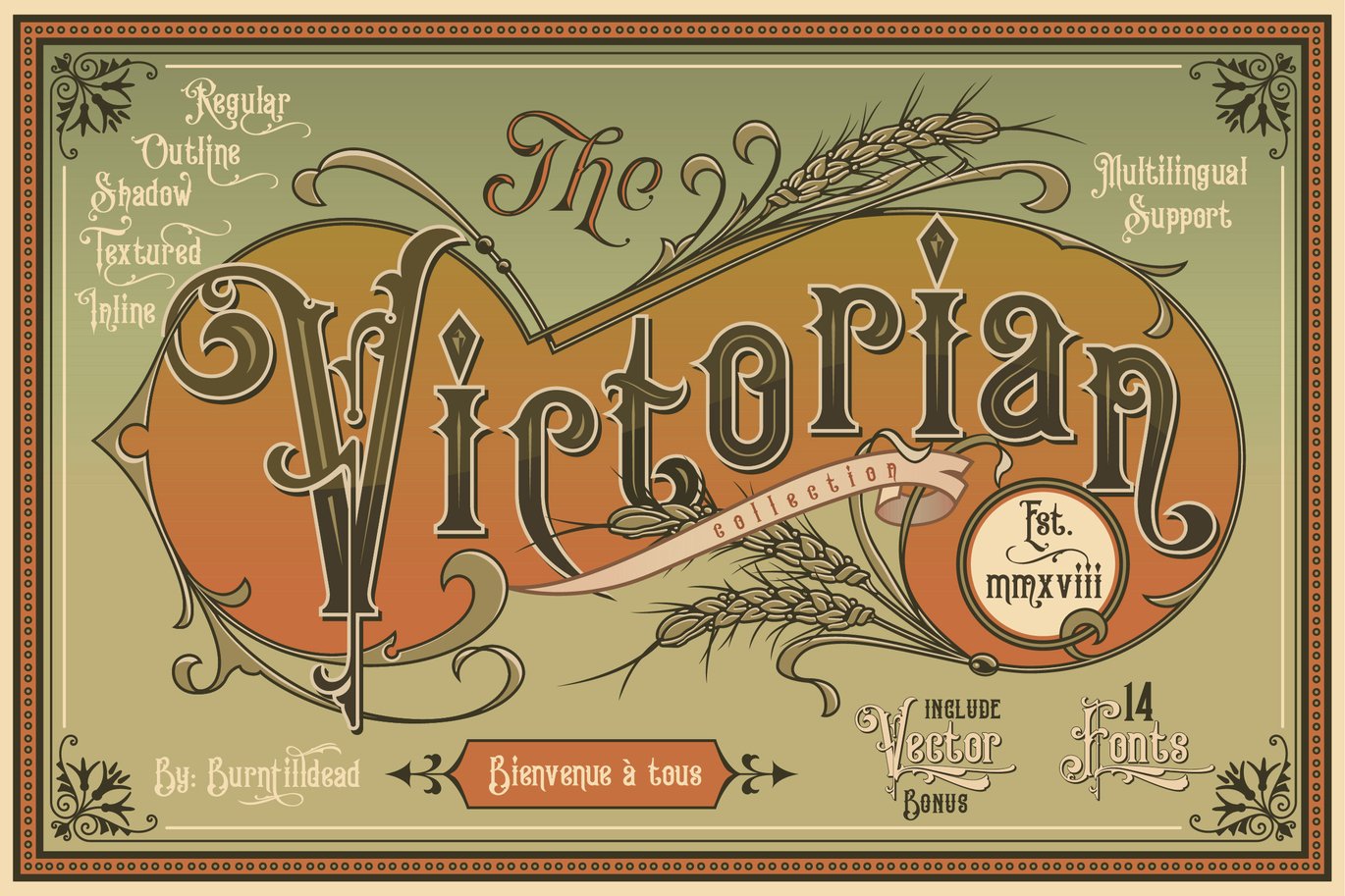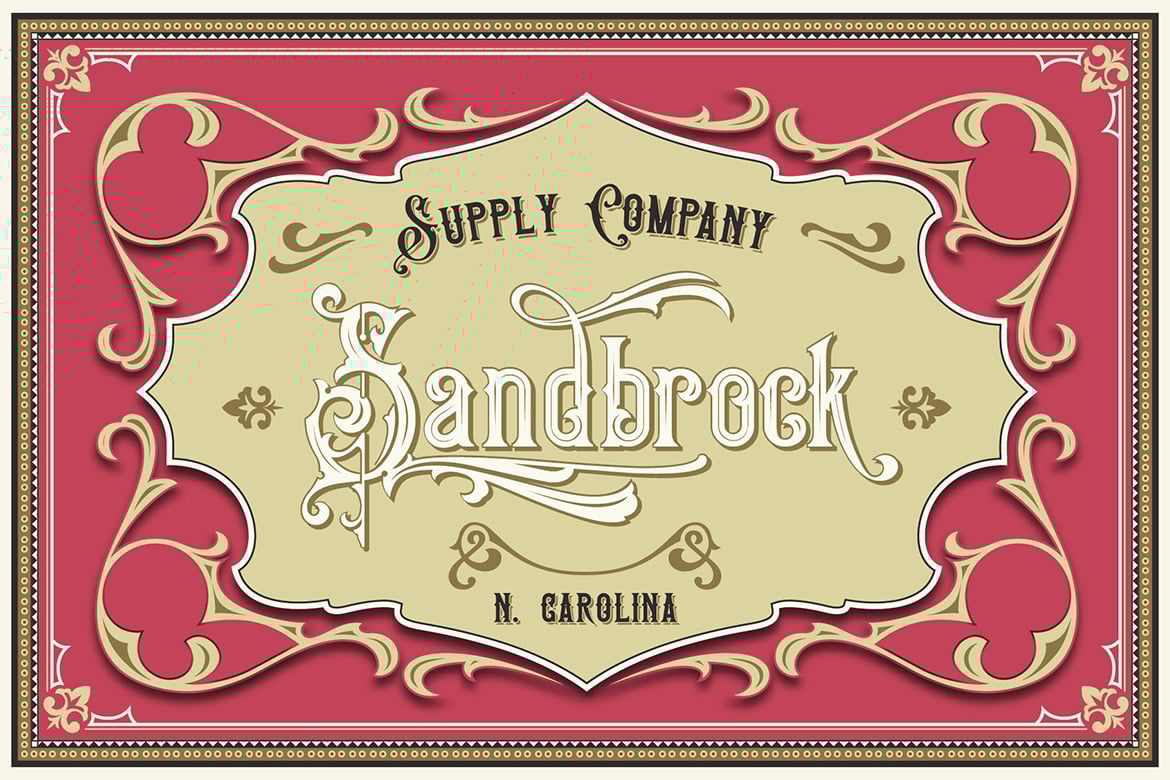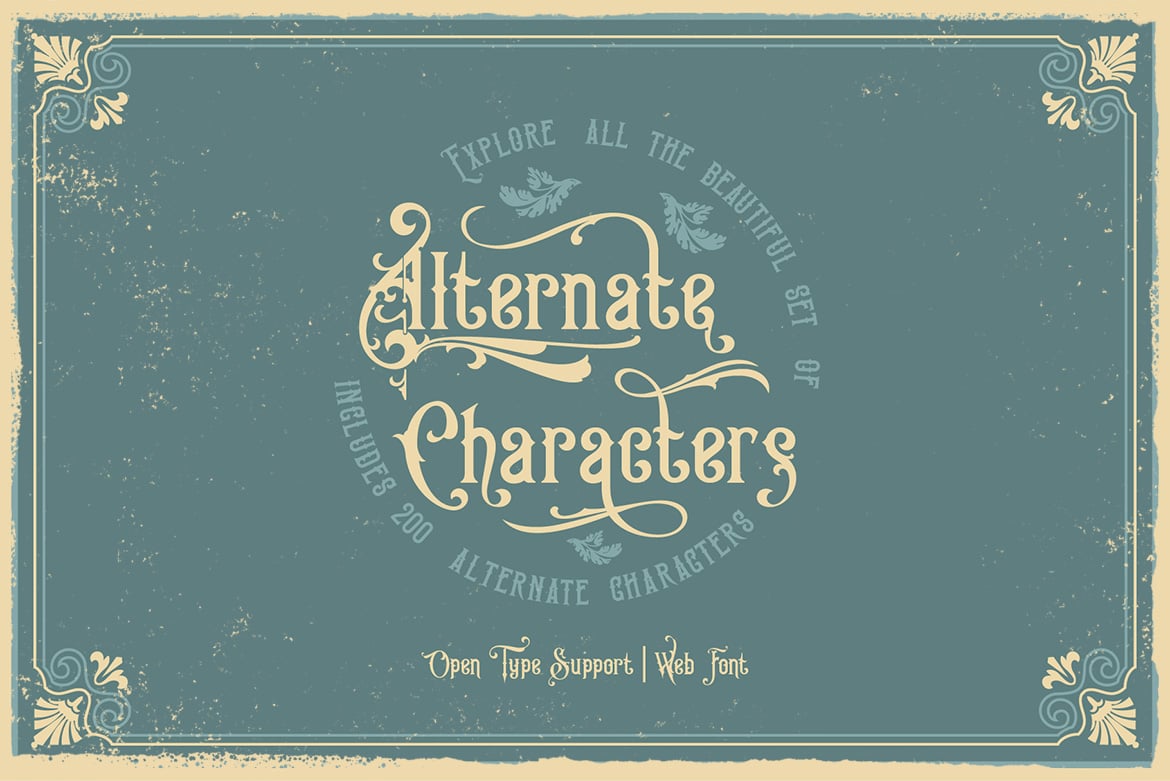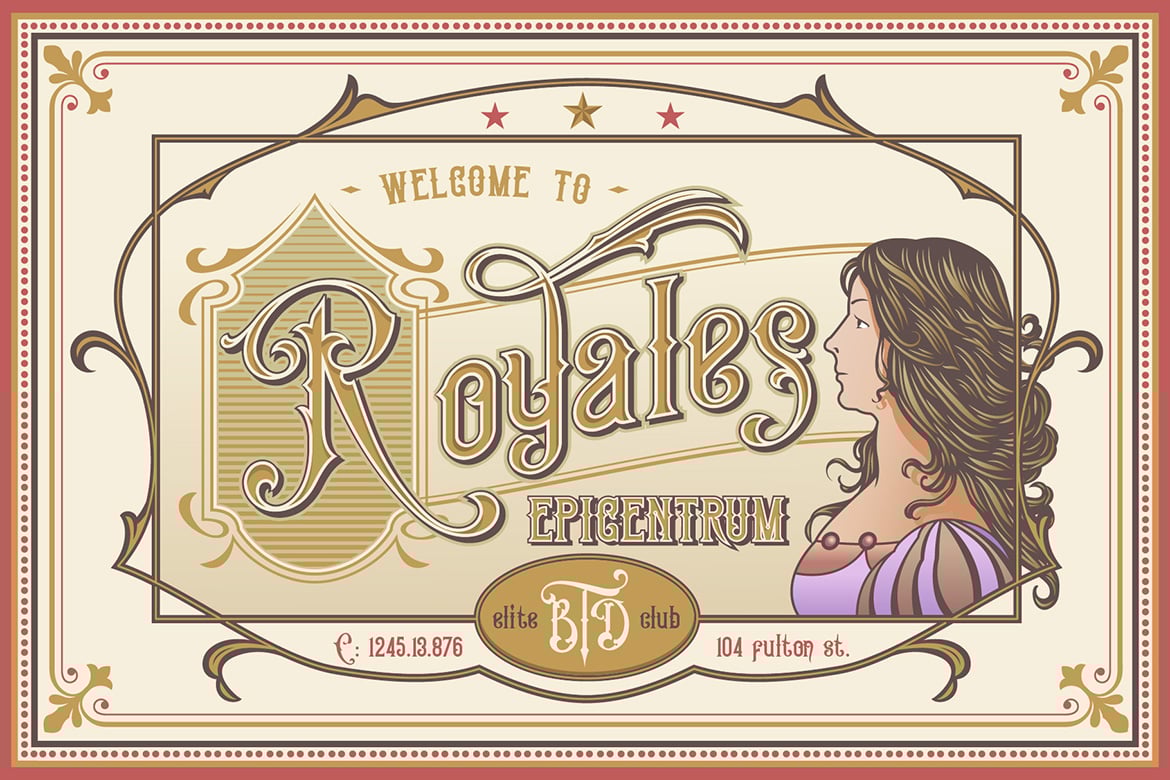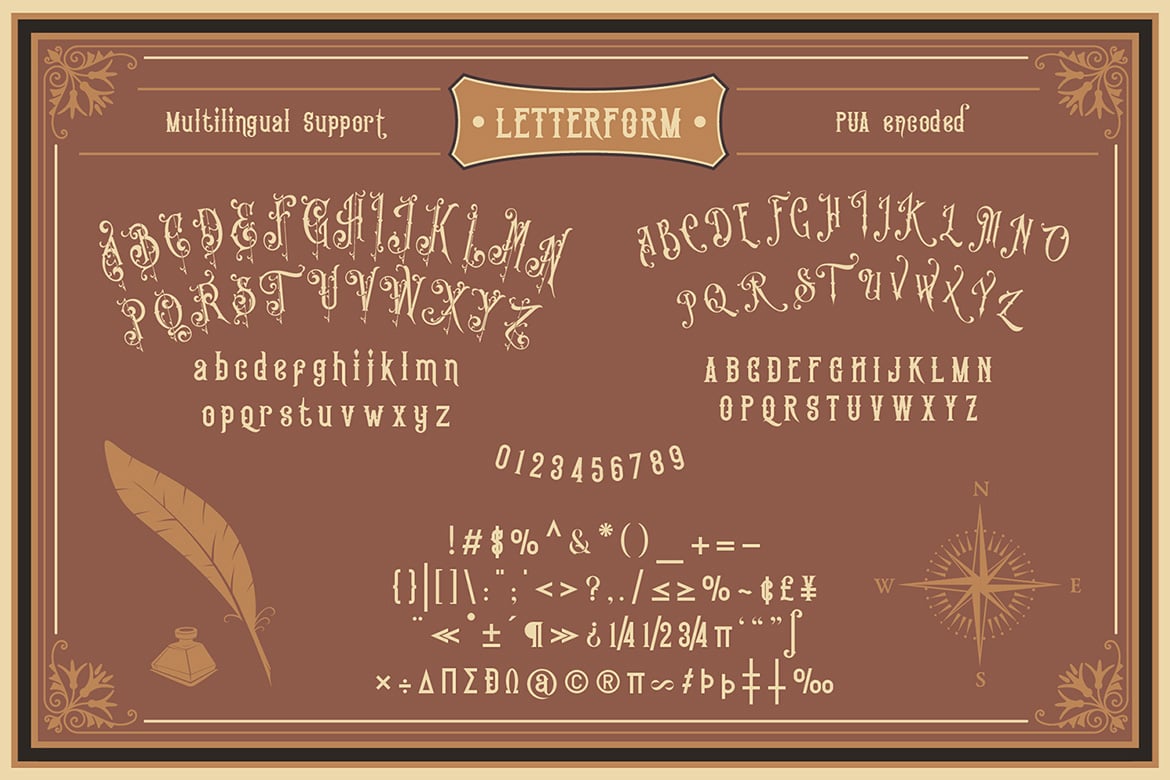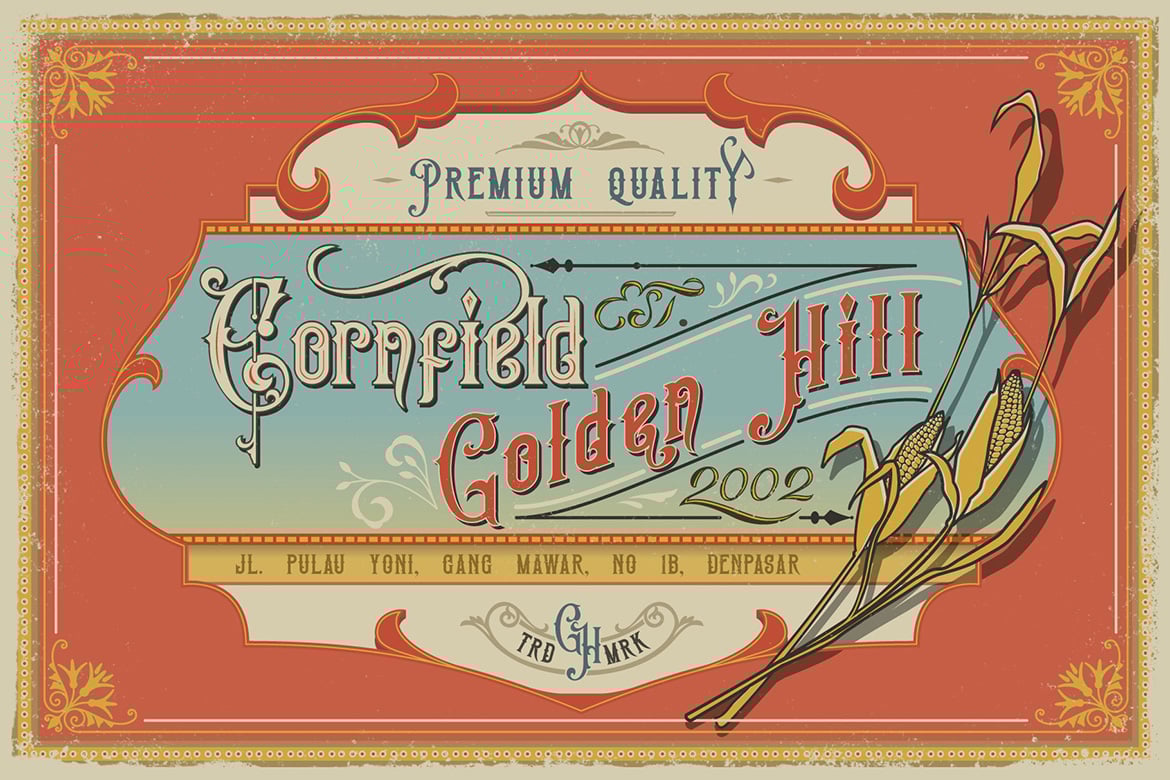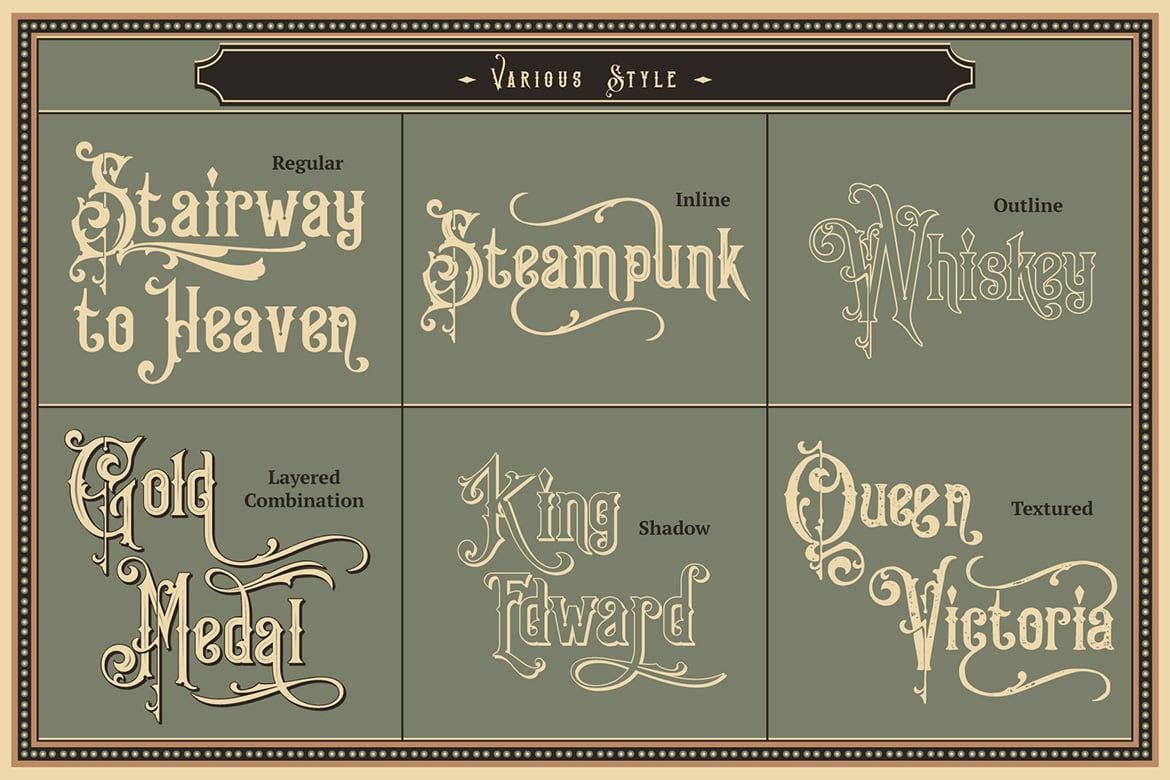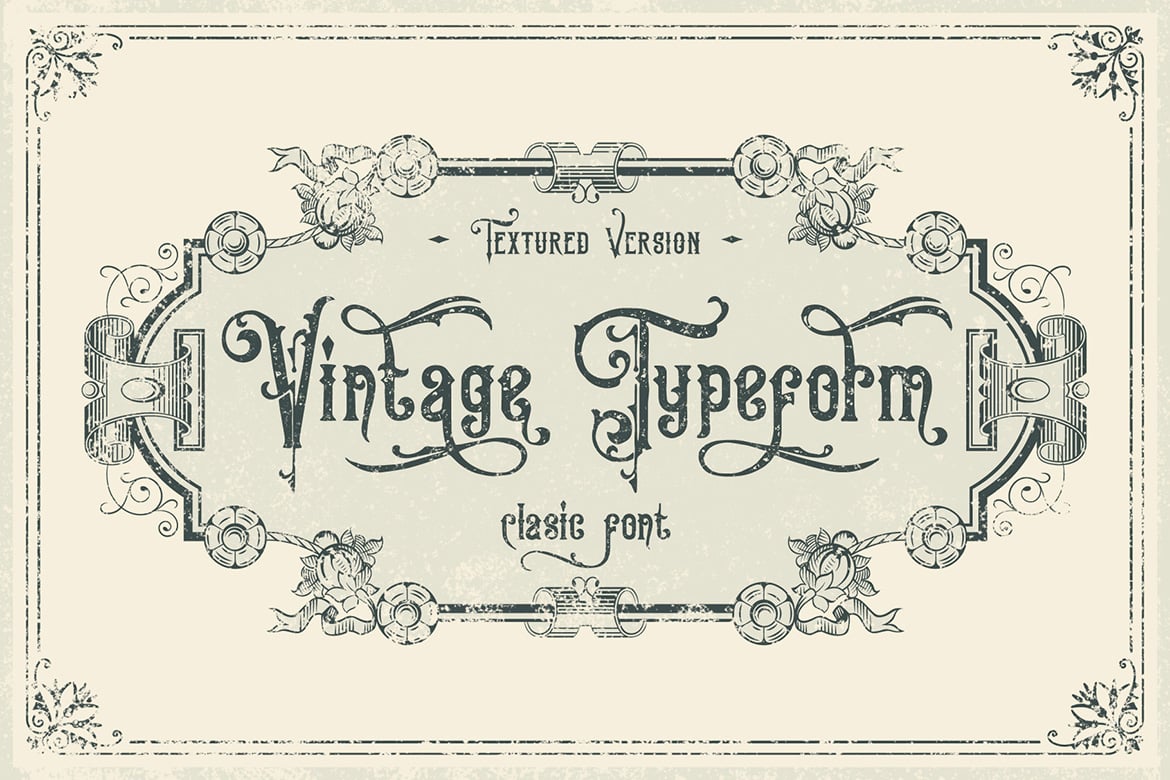
Victorian Fonts Collection
Have you ever imagine to make layered Victorian logo as fast as you blink your eyes? or event make your document and website with victorian classical vibes? Abracadabra! Introducing you opentype font… King Edward and Queen Victoria fonts in one solid package.
Very victorian, ornamental, decorative and classical. A solid combination that can bring your design, logo, document, website, etc. back to 1800 decade. Multilingual fonts-family and playful one with 200 alternate characters.
All characters are available through Glyph panel, even more each of the alternate letter has it’s own unicode (PUA) so you can copy/paste from Apple Font Book or Windows Character Map. Total amount of glyphs 1814.
OPENTYPE FEATURES – First lowercase (after a capital) and last letter swap automatically. You just need turn on Contextual Alternates. Usually Adobe Photoshop and other programs activate it by default.
King Edward
Queen Victoria
Victorian Dingbats Collection